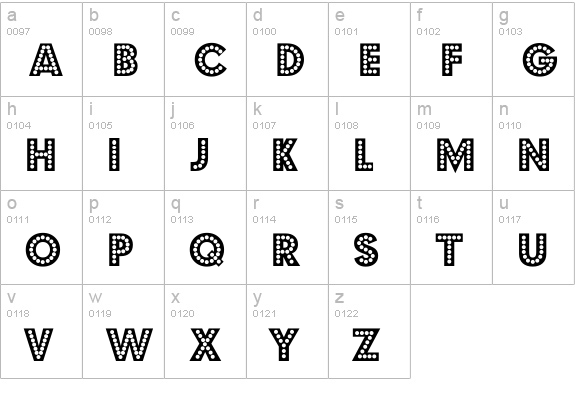
Budmo Jiggler Font Details
Budmo Jiggler font is a whimsical and playful typeface that brings a unique and fun touch to any design project. Its quirky letterforms dance across the page, adding a sense of movement and energy. Perfect for adding a touch of personality to invitations, posters, and social media graphics, Budmo Jiggler is sure to catch the eye and leave a lasting impression. What's even better is that Budmo Jiggler font is completely free to download at FontsMarket.com. Whether you're a seasoned designer looking to add a new font to your collection or a novice looking to experiment with typography, this font is a fantastic choice. Embrace the playful spirit of Budmo Jiggler and let your creativity run wild with this delightful typeface.